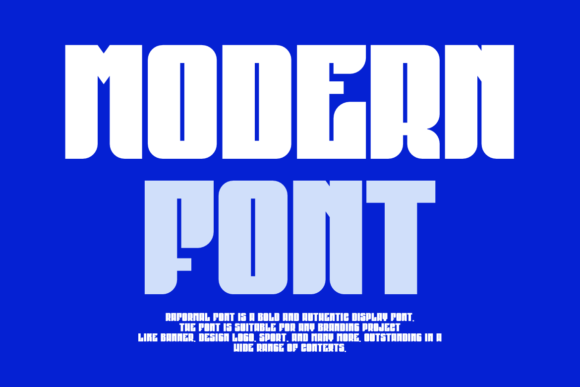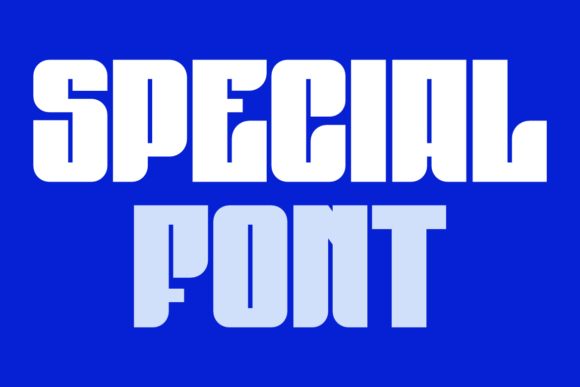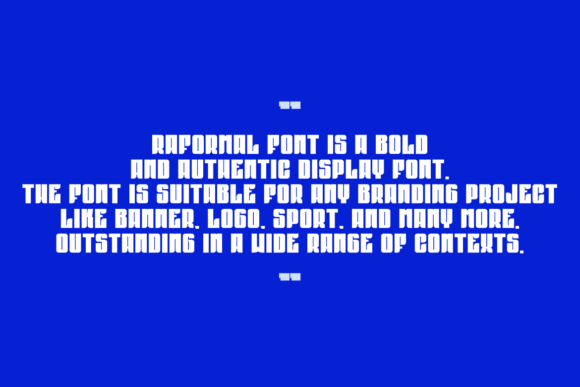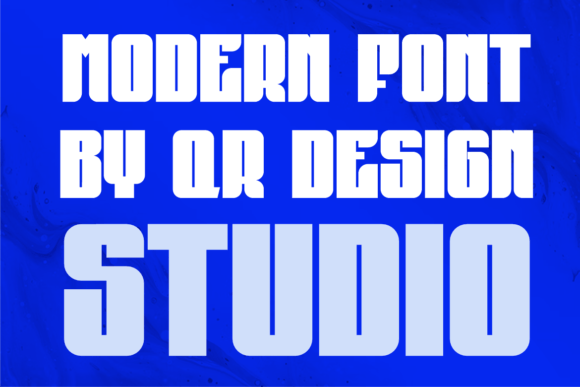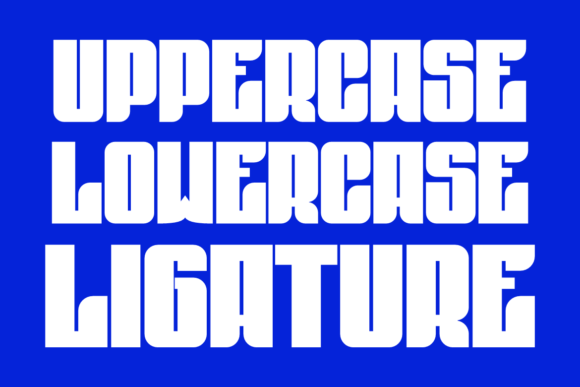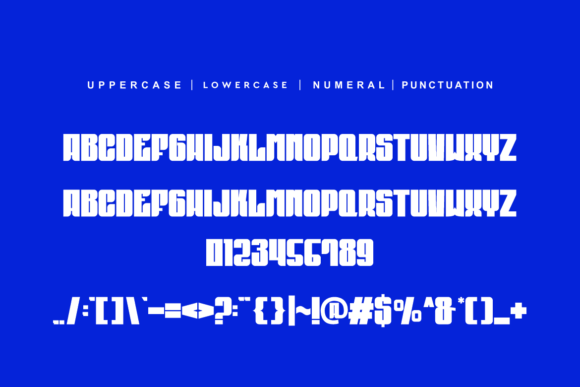
Introduction to Raformal Font
Have you ever been working on a creative project, pouring your heart and soul into it, only to realize that the perfect font is missing? The spark that sets your design apart from the rest? That’s exactly what happened to us when we stumbled upon the Raformal Font – a game-changing display font that has taken our designs to the next level.
As designers, we’re always on the lookout for that one special resource that can elevate our work and make it truly stand out. And let me tell you, the Raformal Font is just that. With its bold and authentic design, it’s perfect for any branding project, from logos to T-shirt printing, and even sports-related designs. The possibilities are endless, and the results are always extraordinary.
Key Features of Raformal Font
- Unique, elegant design suitable for creative projects and professional use as a design resource.
- Perfect for use in various design projects, from logos and branding to digital art and print materials.
Honest Review: Raformal Font
I recently stumbled upon the Raformal Font, a high-quality design resource that caught my attention. The moment I downloaded it, I was excited to see how it would perform in my next creative project.
What works well: ✨ The font is incredibly versatile, with a sleek and modern design that’s perfect for both digital and print applications. The transparent background makes it easy to overlay on images or use as a standalone element. I also appreciate the high quality of the font, which is crisp and clear even at smaller sizes.
What doesn’t work well: ⚠️ One of the limitations I’ve noticed is that the font doesn’t come with a wide range of styles or variations. While this isn’t a deal-breaker, it would be nice to have more options to choose from.
Overall, I’m impressed with the Raformal Font. While it may not offer as much flexibility as some other design resources, its high quality and versatility make it a great addition to any designer’s toolkit.
Getting the Most Out of Raformal Font
To get the most out of the Raformal Font, use it in combination with a transparent background to create a clean and minimalist design. You can also experiment with different font sizes and styles to create a unique look for your creative project.
The Raformal Font is ideal for use in creative projects such as logos, business cards, and marketing materials. Its high-quality design and transparent background make it perfect for designers who want to create a professional and modern look.